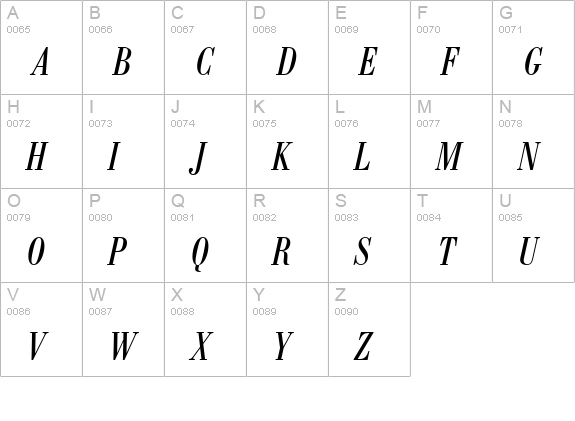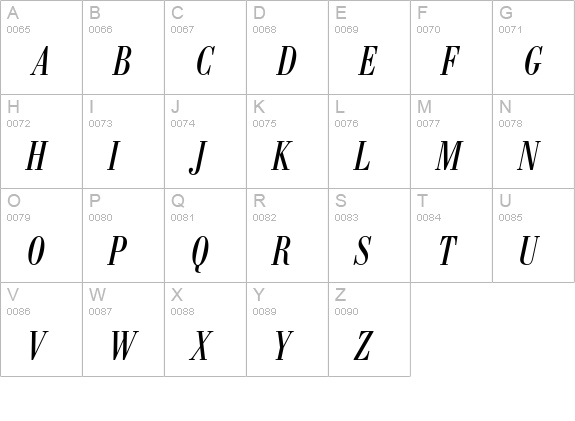
Bodoni BE Condensed Italic Font Details
Bodoni BE Condensed Italic is a distinctive, condensed-width, italic variant in the Bodoni typeface family \xE2\x80\x94 well suited to design and typography projects.
Bodoni BE Condensed Italic font exudes elegance and sophistication with its sleek and stylish design. The condensed italic style adds a touch of modernity and flair, making it perfect for fashion magazines, luxury branding, and high-end design projects. The fine details and graceful curves of this font showcase a sense of refinement and class. What makes Bodoni BE Condensed Italic font even more appealing is that it is available for free download at FontsMarket.com. This means you can easily access and use this exquisite typeface for your creative projects without any cost. Whether you are working on a logo, website design, or editorial layout, Bodoni BE Condensed Italic font will elevate your content to a whole new level of sophistication and style. Download it today and add a touch of luxury to your designs.